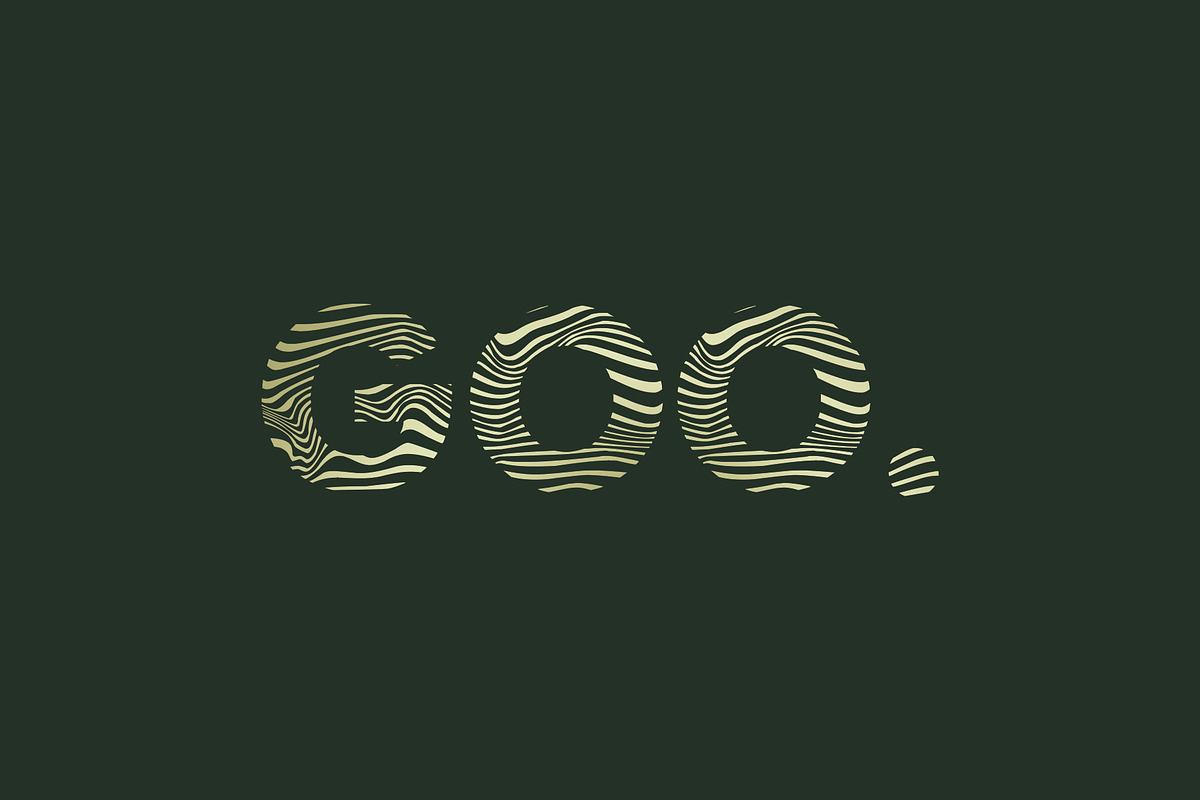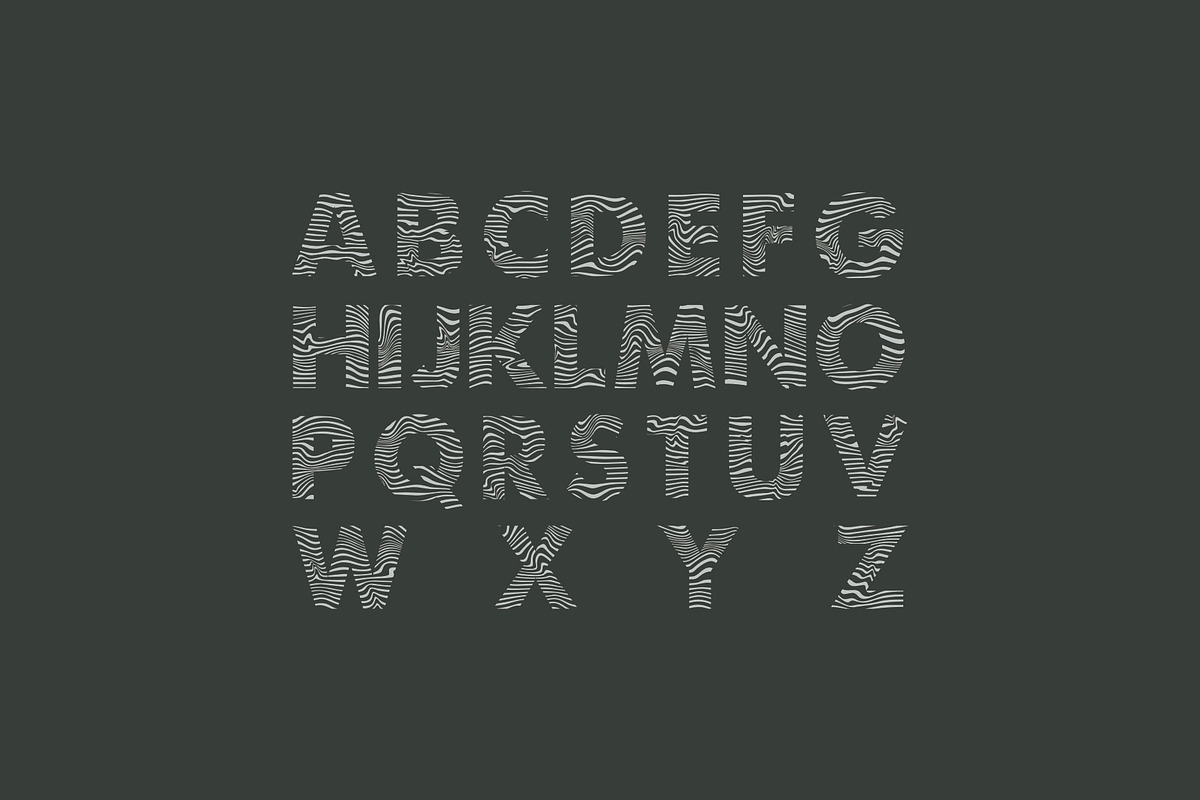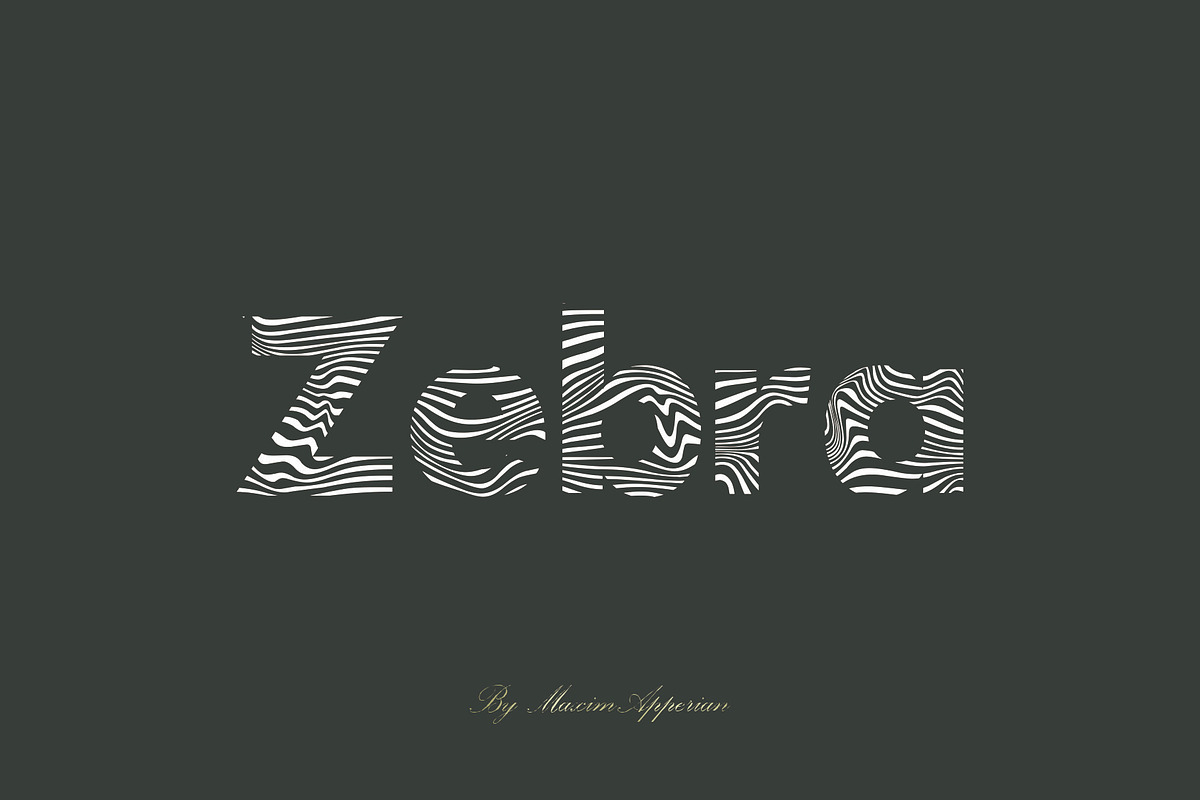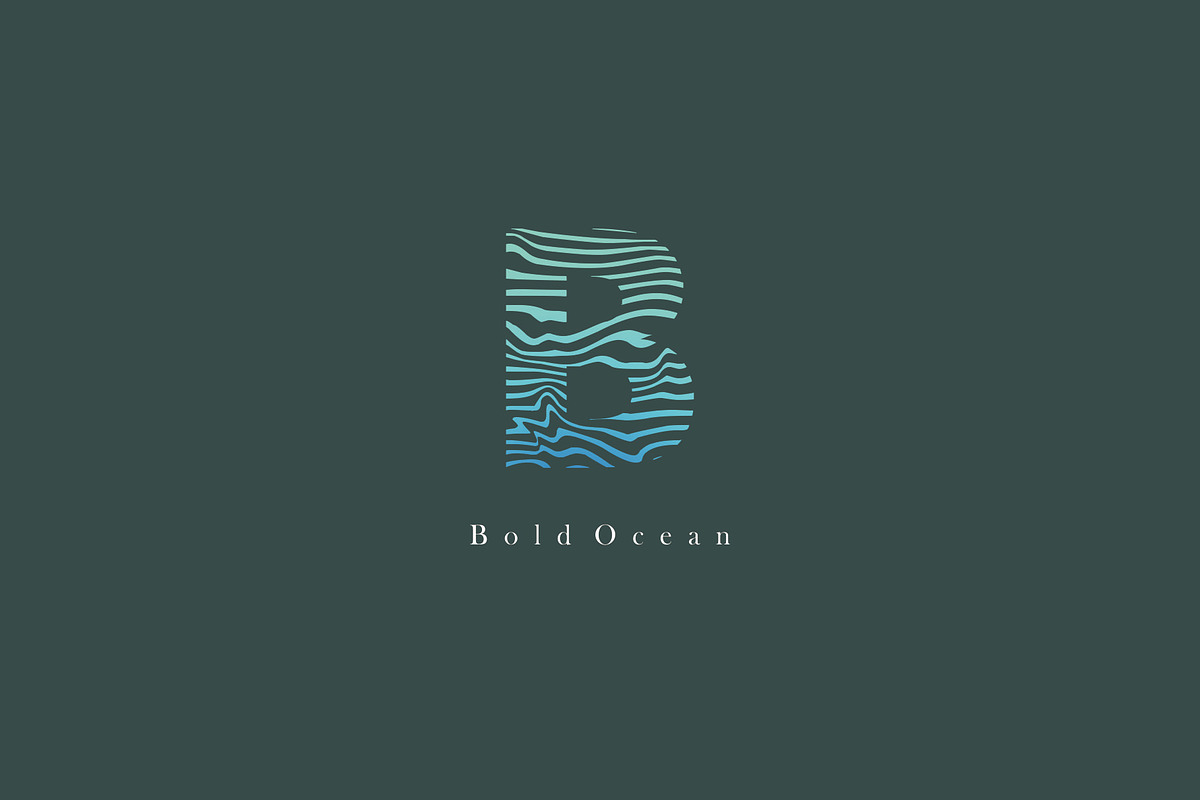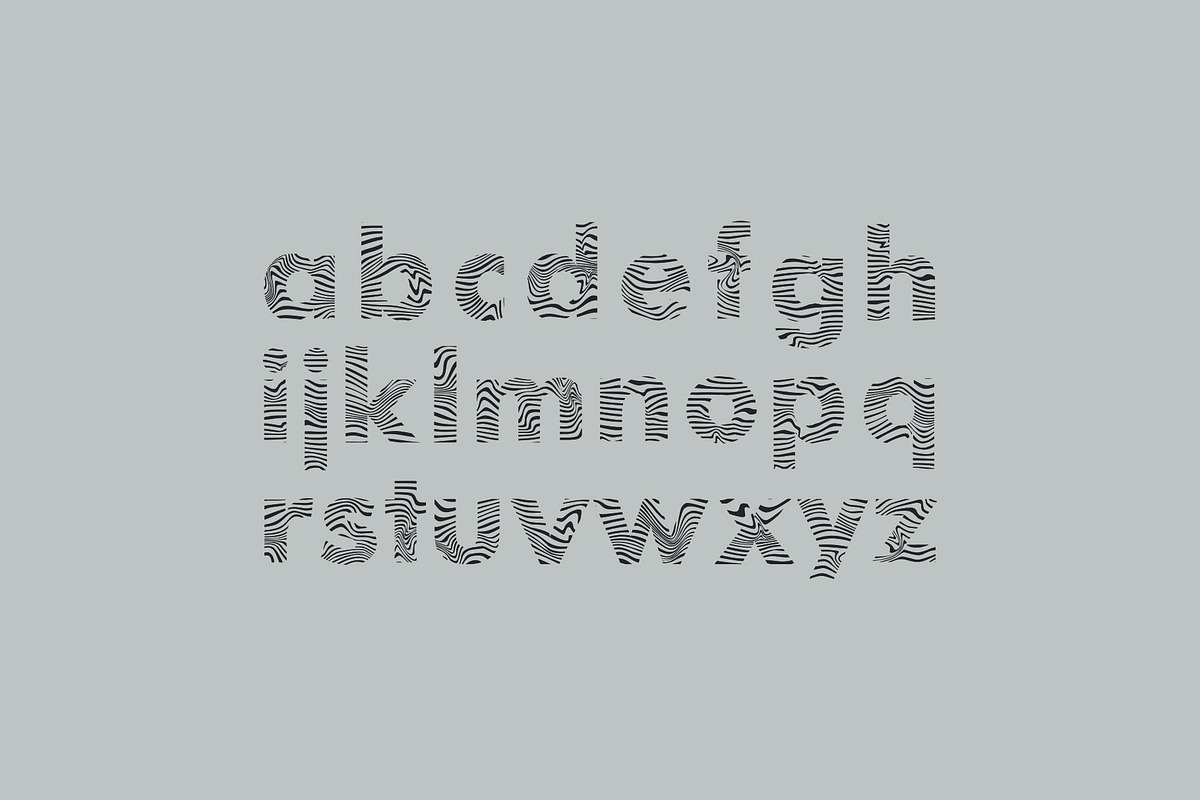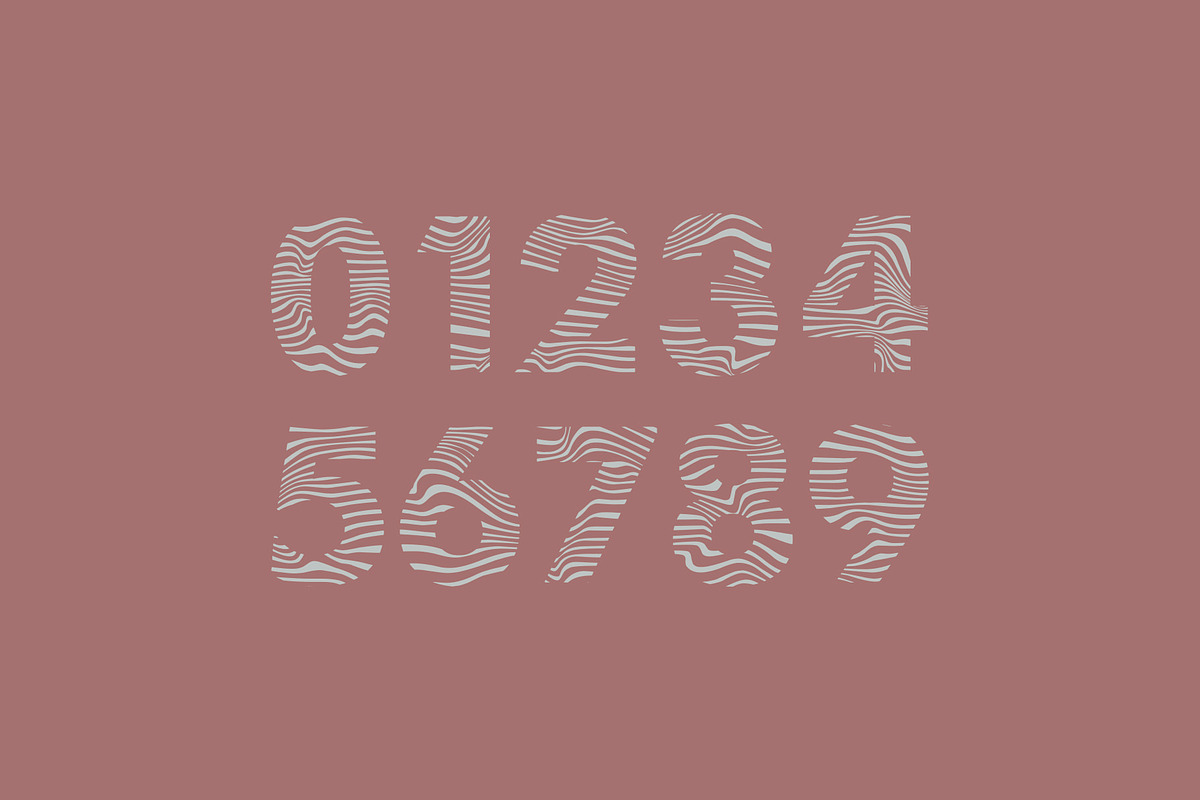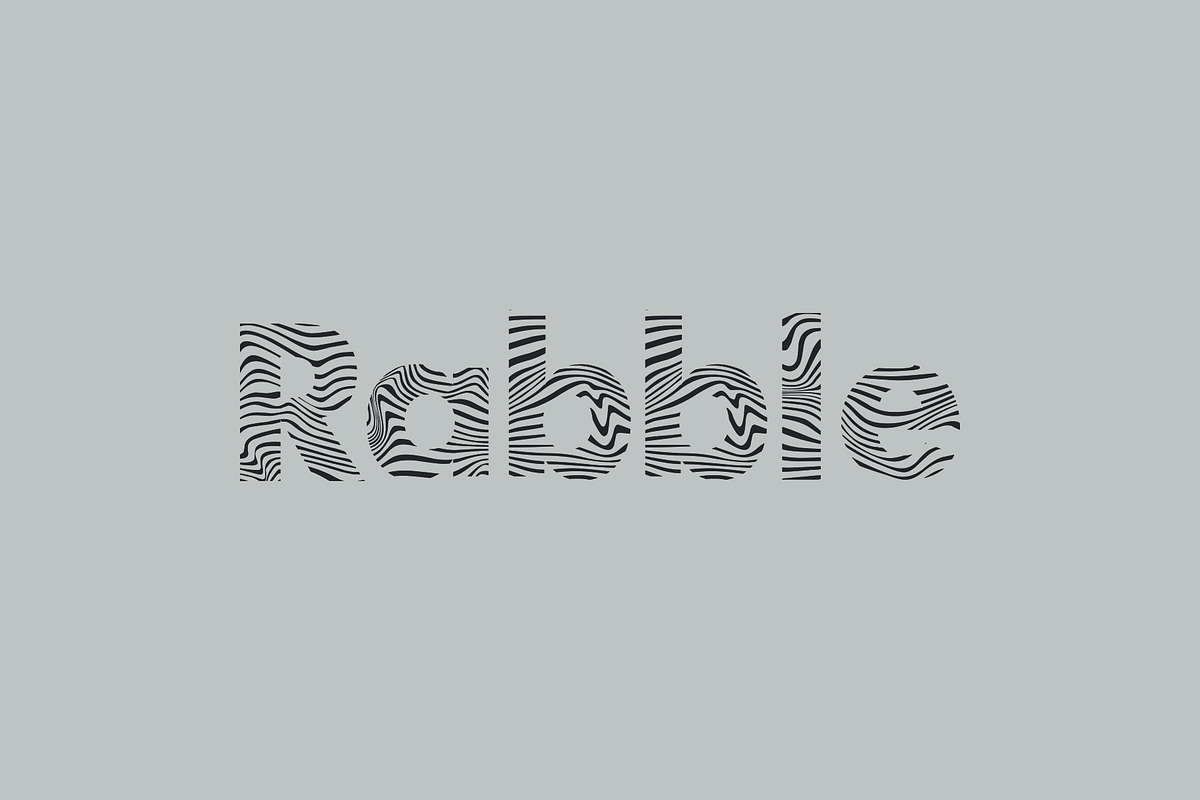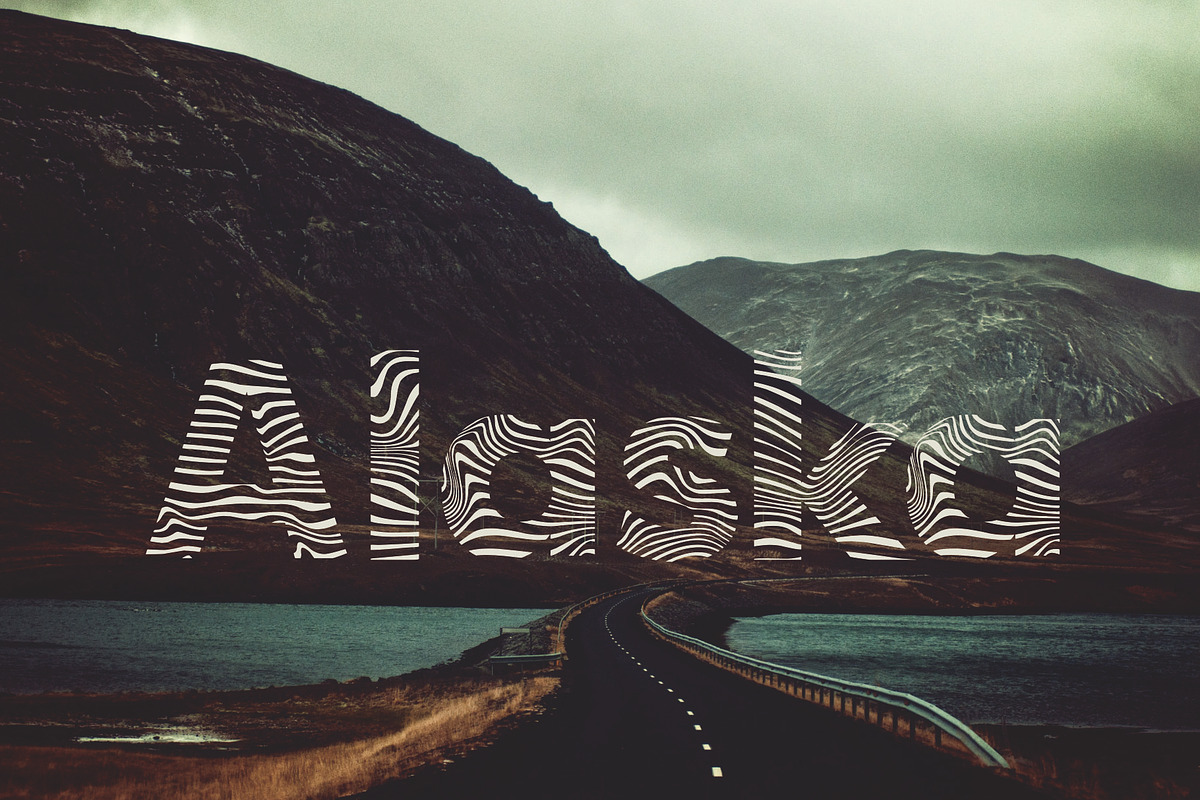
Zerbra Font Sans
Give your designs an authentic handcrafted feel. “Zebra Font” is perfectly suited to stationery, business card, logos and much more
Why Zerbra Font Sans is worth a look
Zerbra Font Sans by Maxim apperian fits naturally into Branding, posters, packaging, typography.